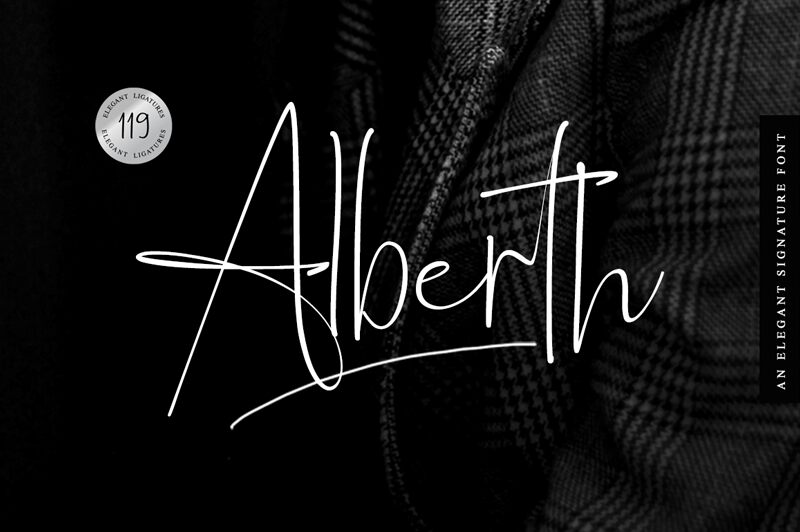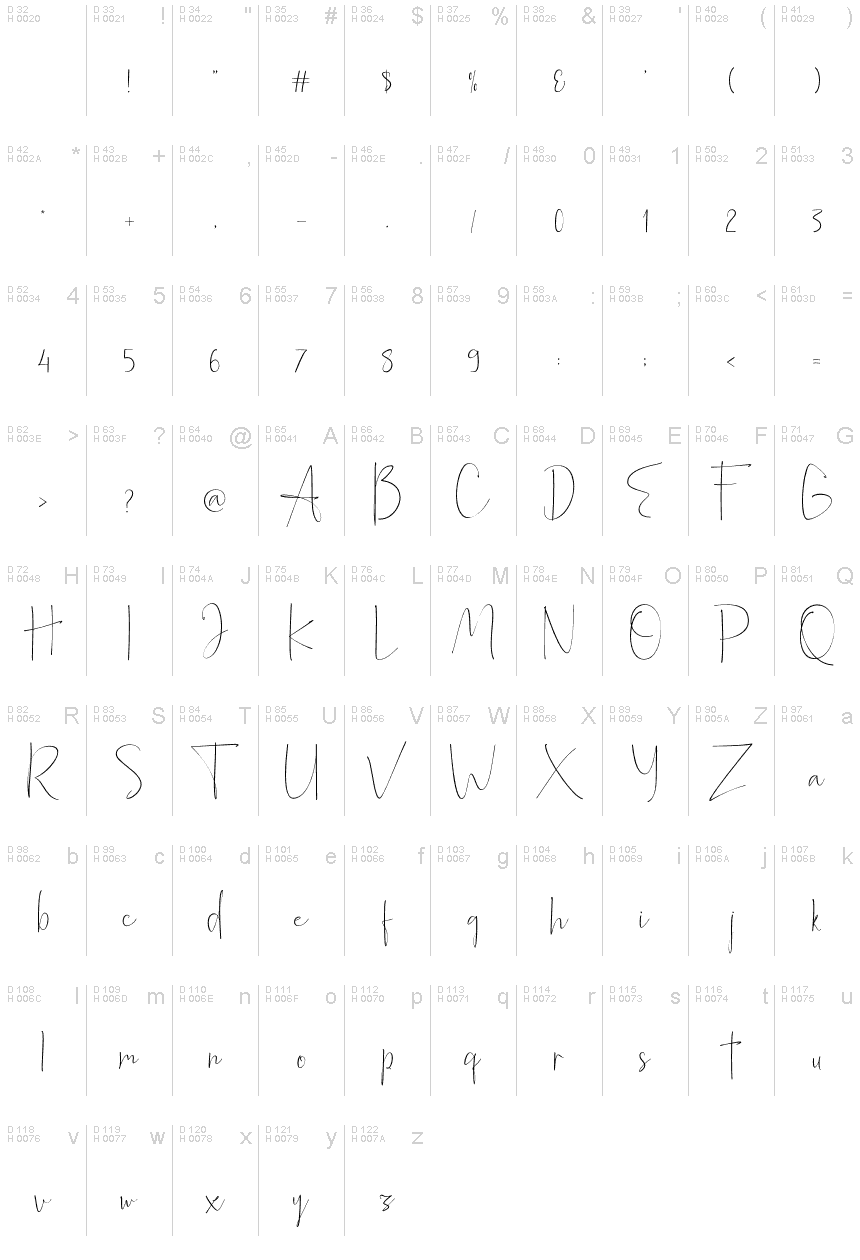
Alberth is an amazing family of unique and elegant fonts. with 119 elegant ligatures, giving your design a luxurious and classy touch.
Alberth Demo — Schriftpräsentation